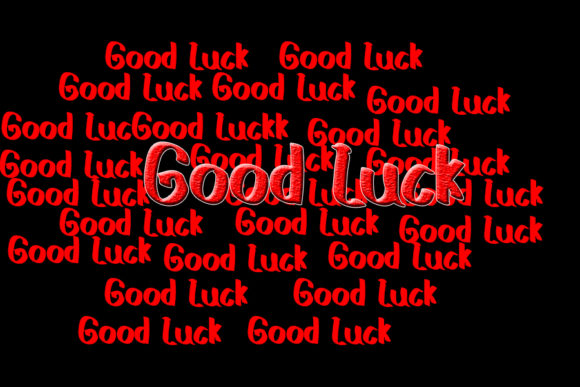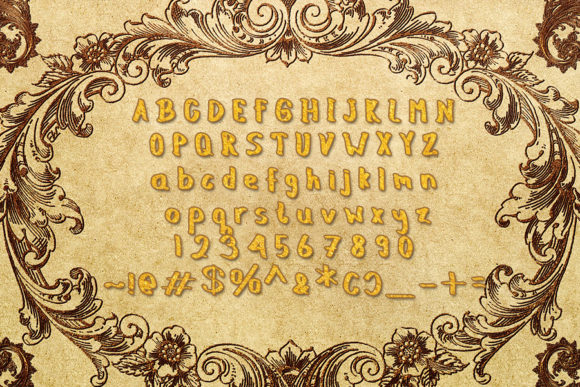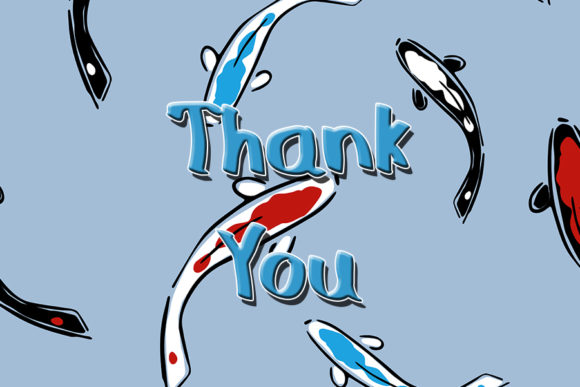
Unlocking Creativity with the Good Luck Font
Have you ever stared at a blank page, desperately searching for that one spark to ignite your creative vision? We’ve all been there – the blank page staring back, taunting us with its emptiness. But what if I told you that there’s a secret tool to unlock the doors of creativity and take your ideas to new heights?
Enter the Good Luck Font, a masterfully designed display font that’s about to become your new favorite. With its unique charm, this font is specifically crafted to bring out the best in your creative endeavors. Whether you’re a seasoned designer or a budding artist, the Good Luck Font is an invaluable asset to have in your toolkit.
So why is the Good Luck Font so valuable to designers? For starters, its versatility and distinct character make it perfect for adding a touch of personality to any project. With this font, you’ll be able to infuse your work with a dash of good fortune and a whole lot of style.
Key Features of Good Luck Font
- Unique Characteristics: The Good Luck Font features a unique and playful design, with a mix of bold and cursive elements that convey good fortune and positivity.
Designer Review: Good Luck Font
First off, I have to say that I was immediately drawn in by the whimsical feel of the Good Luck Font. ✨ The subtle, rounded edges and gentle curves give it a friendly, approachable vibe that’s perfect for any design project that needs a little luck on its side.
One of the things that really stands out about this font is its versatility. ✨ It’s great for headings and titles, but it also works well for body text, making it a solid choice for longer blocks of content. The font also comes in a range of weights and styles, from light and airy to bold and statement-making.
However, I do have a few concerns about the font’s limitations. ⚠️ For one thing, it’s not the most legible font at smaller sizes, which can make it tricky to use for anything that requires a lot of fine print. Additionally, the font’s rounded edges can sometimes make it difficult to read, especially for those with vision impairments.
Overall, I think the Good Luck Font is a great choice for designers who want a friendly, approachable font that’s perfect for luck-themed projects or anything that needs a little extra positivity. With a few tweaks to address its limitations, I think this font could be a real game-changer.
- Works well for headings and titles
- Comes in a range of weights and styles
- Versatile for body text and longer content
- Not the most legible at smaller sizes
- Can be difficult to read for those with vision impairments
Tip: Use the Good Luck Font to add a personal touch to your invitations, party decorations, and other celebratory designs.
Tip: Use the Good Luck Font to create custom graphics, logos, and other visual elements for your designs.
Tip: Use the Good Luck Font to add a personal touch to your presentations, reports, and other documents.
The Good Luck Font is ideal for:
- Invitations and party decorations
- Custom graphics and logos
- Presentations and reports